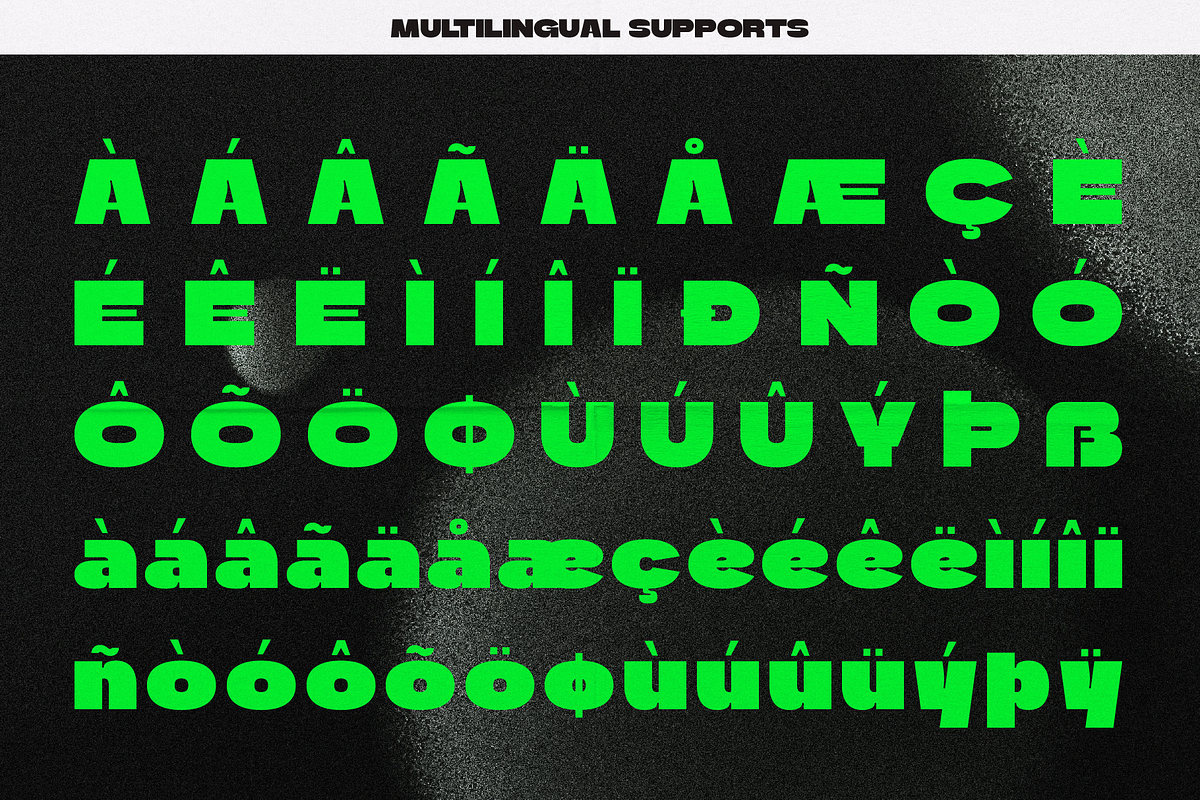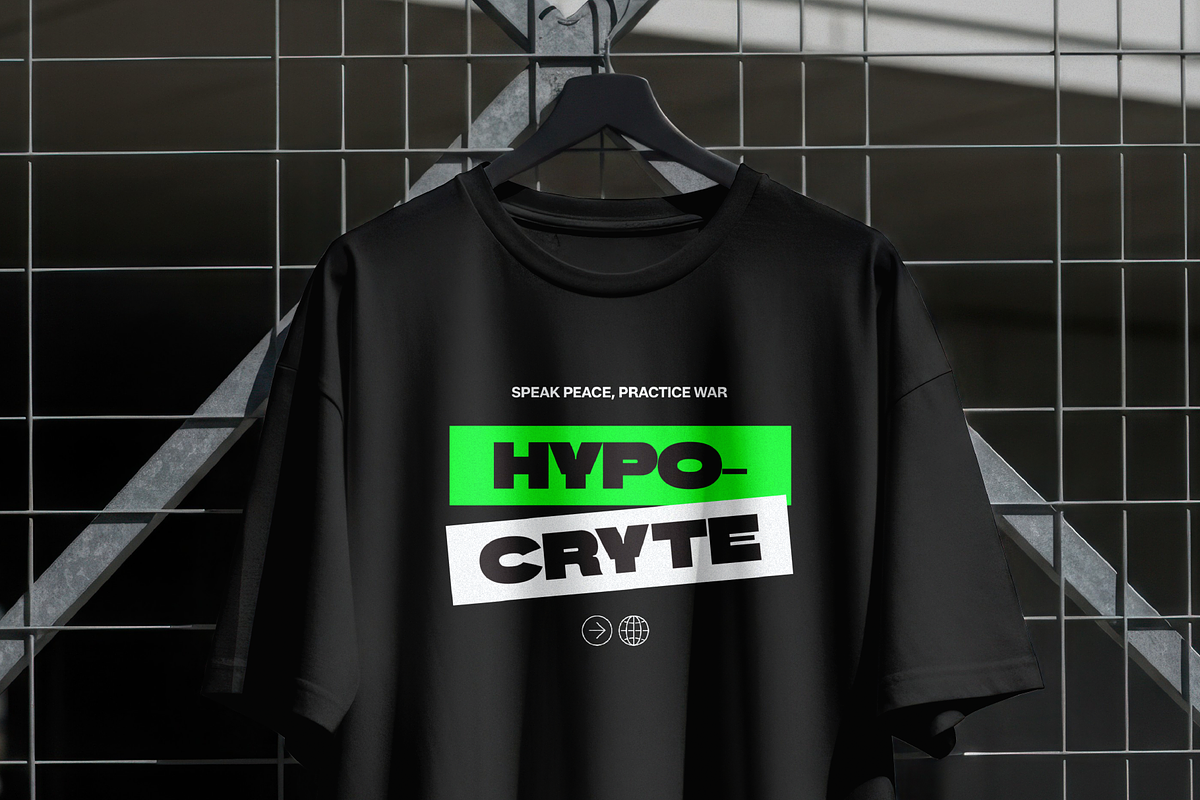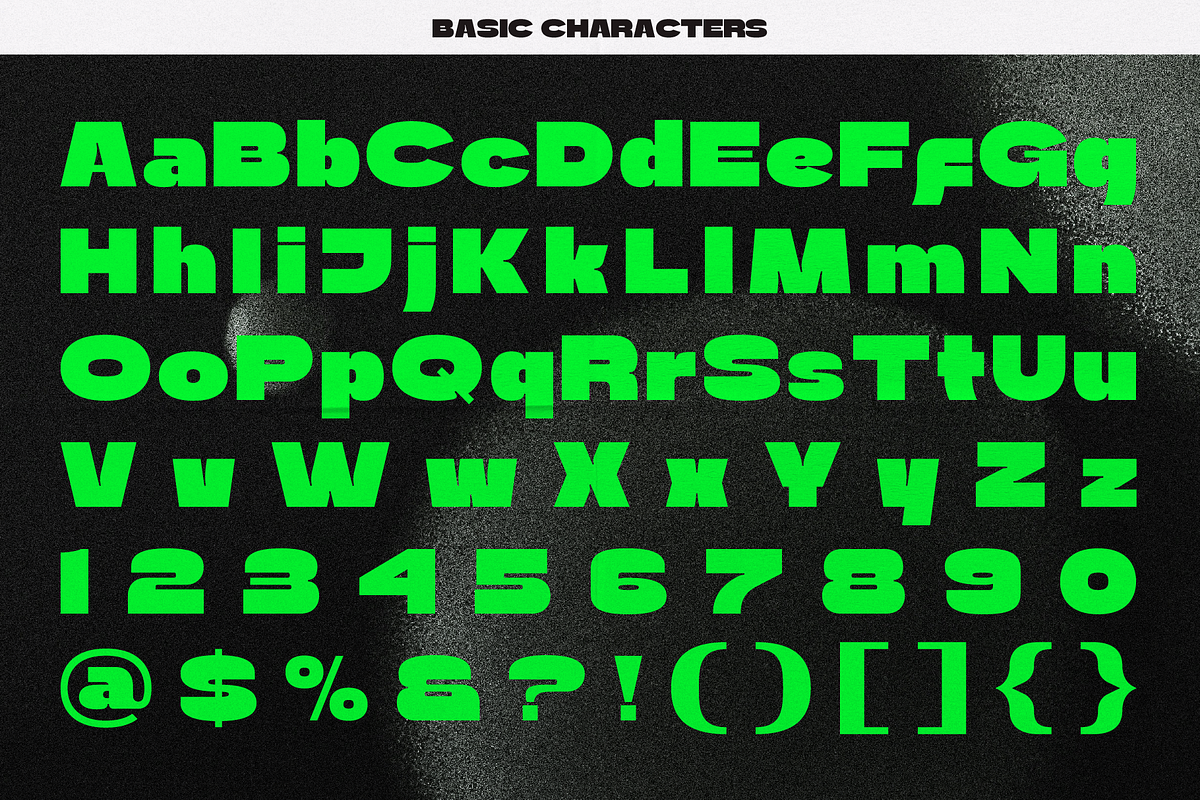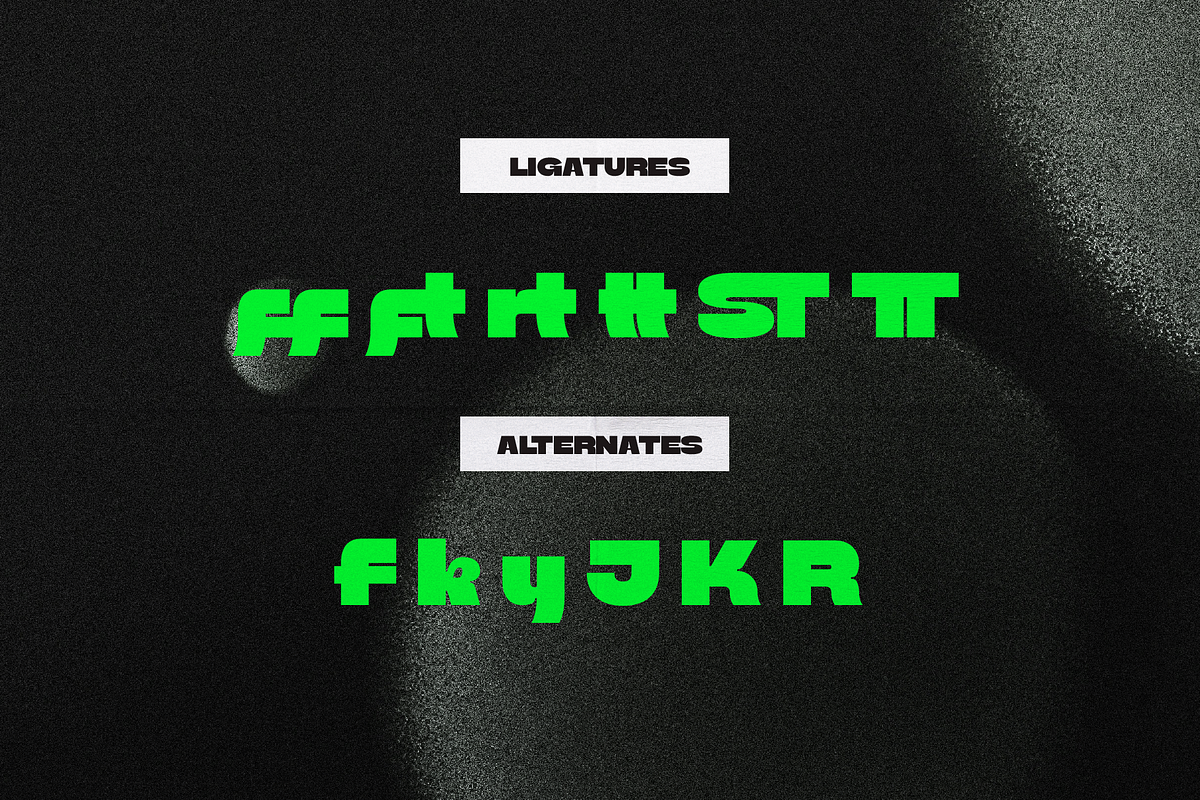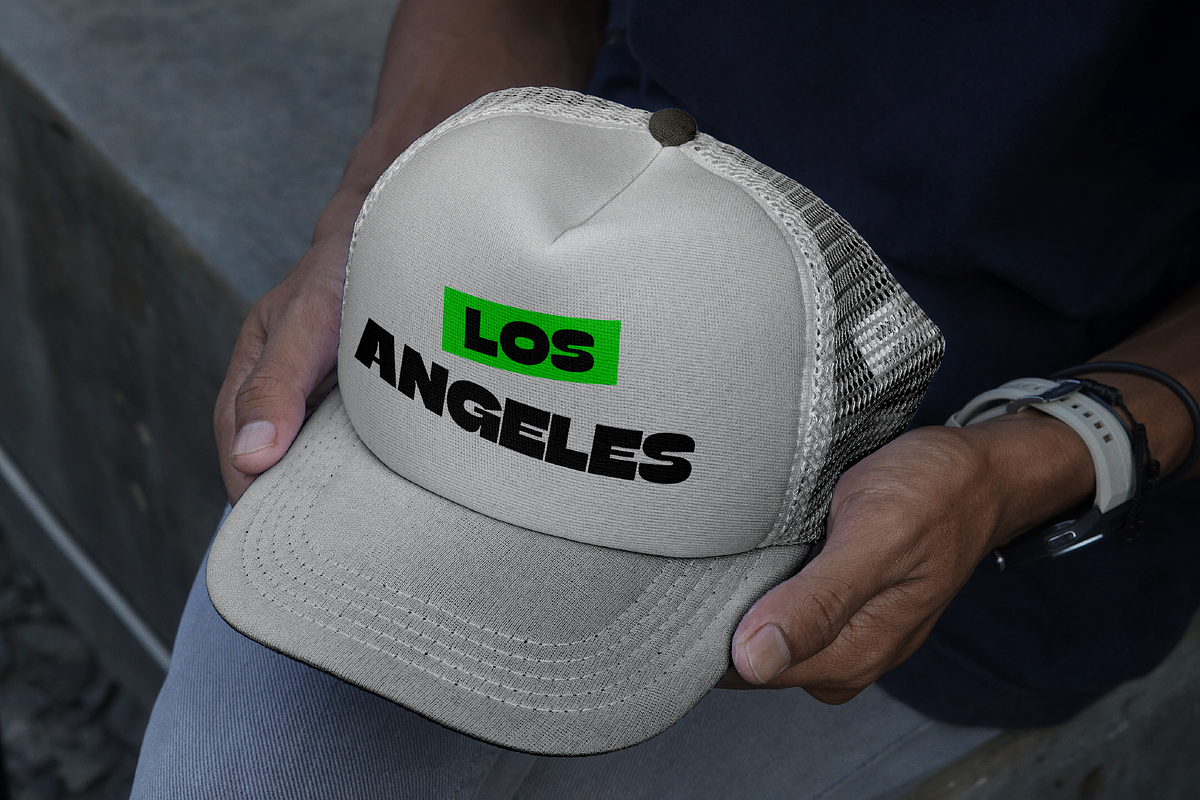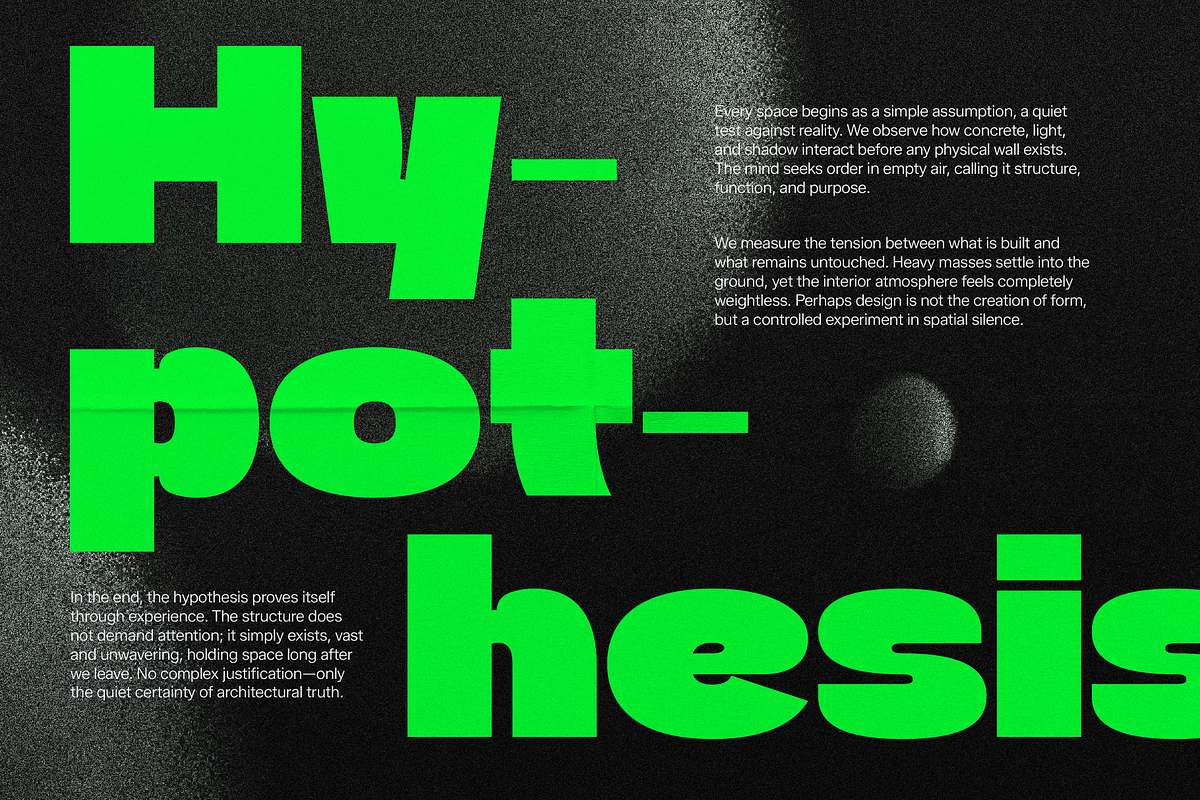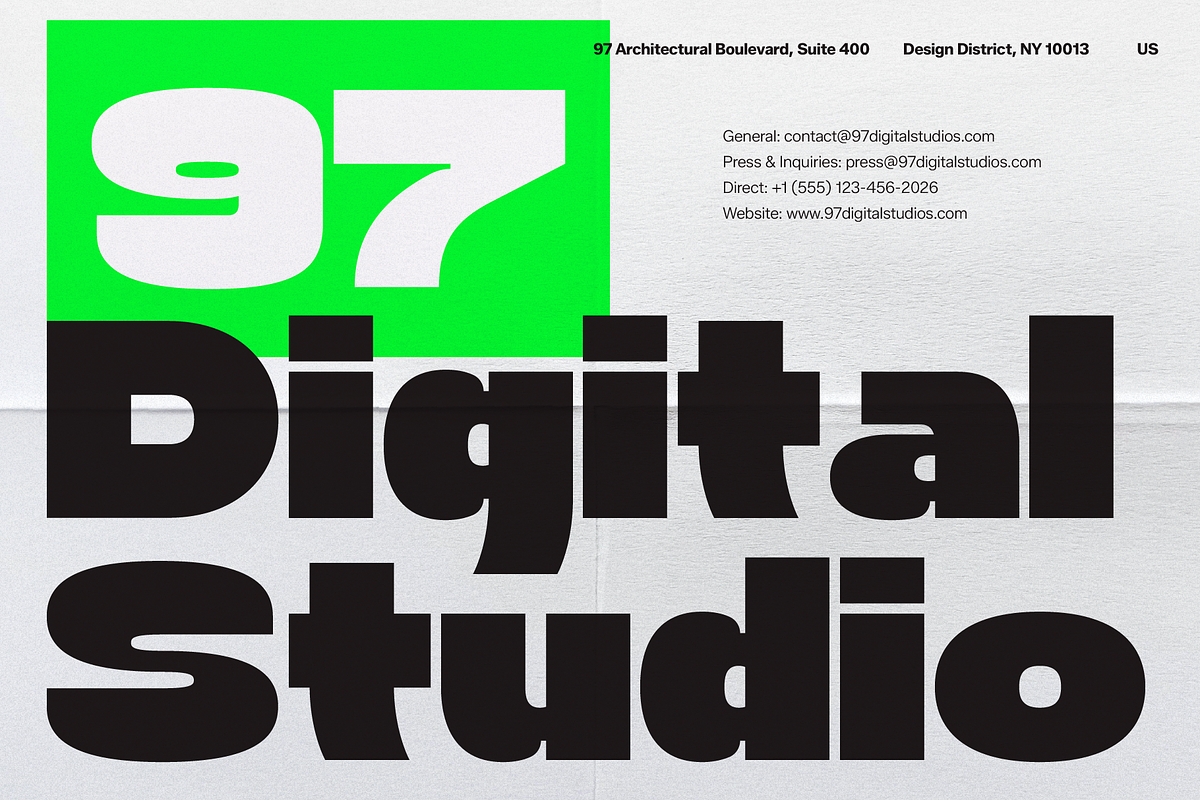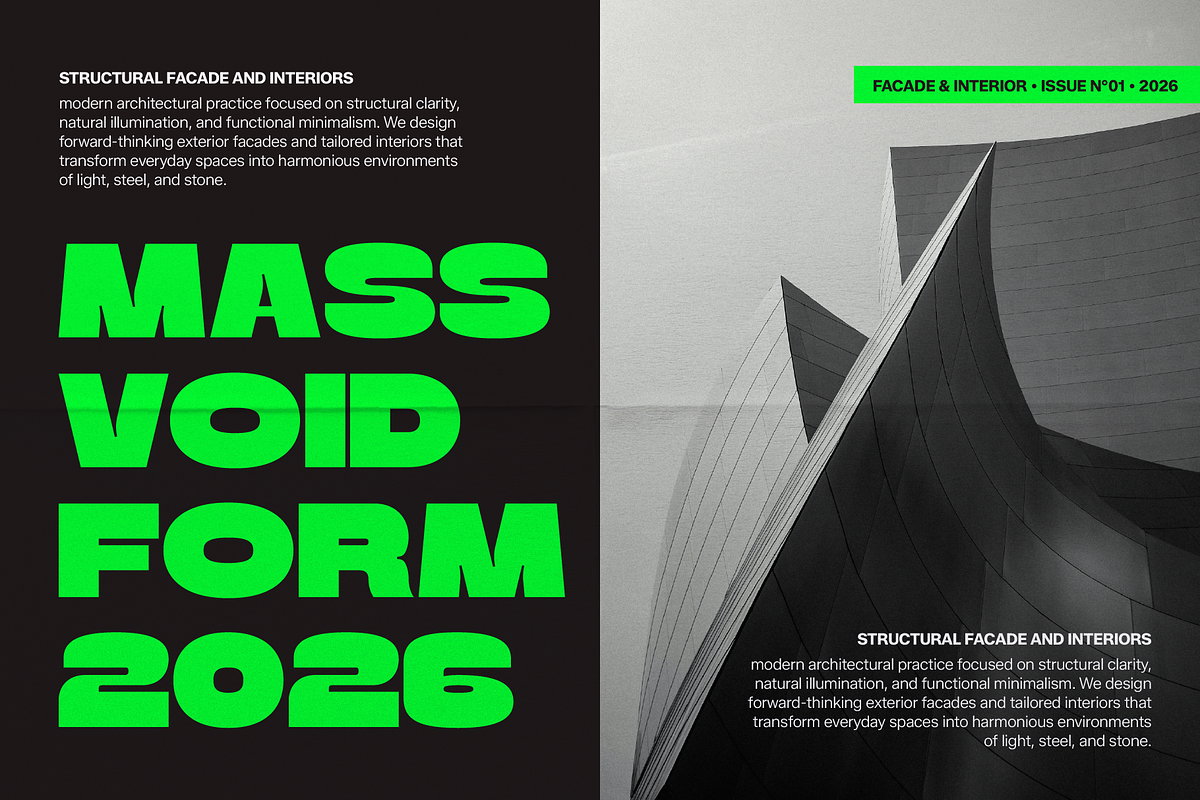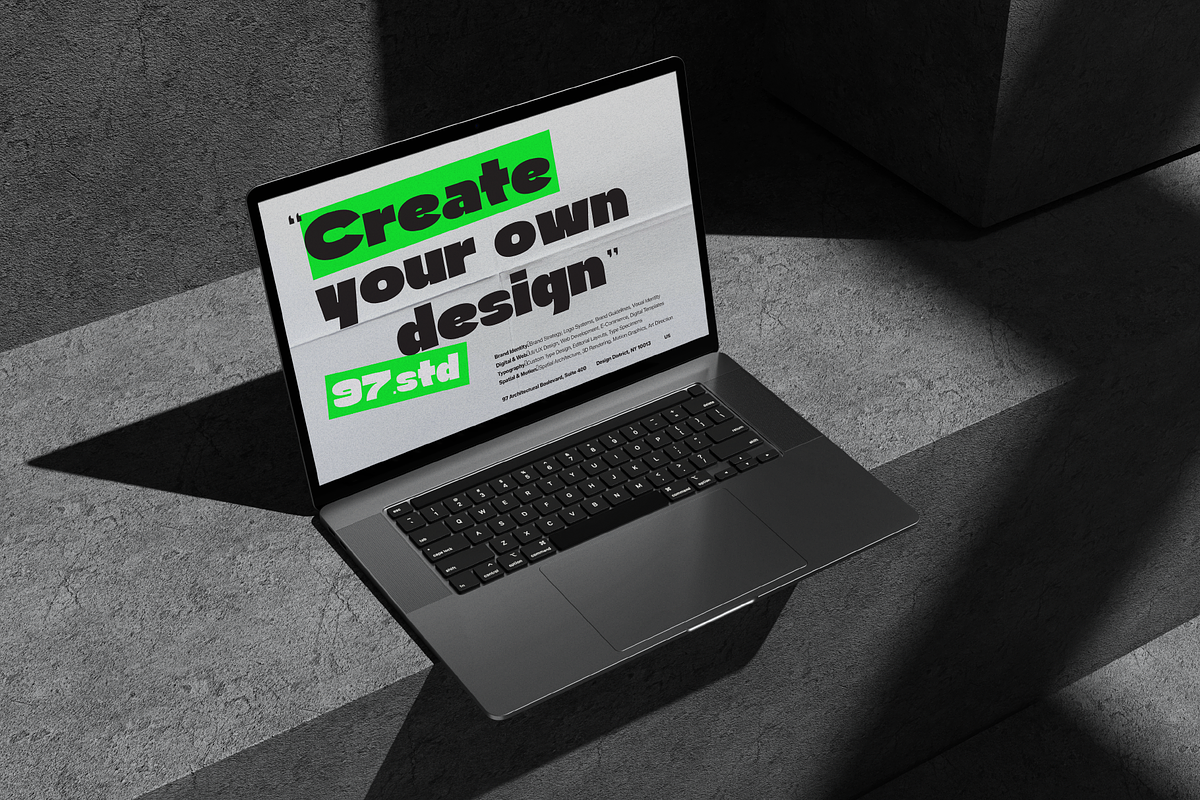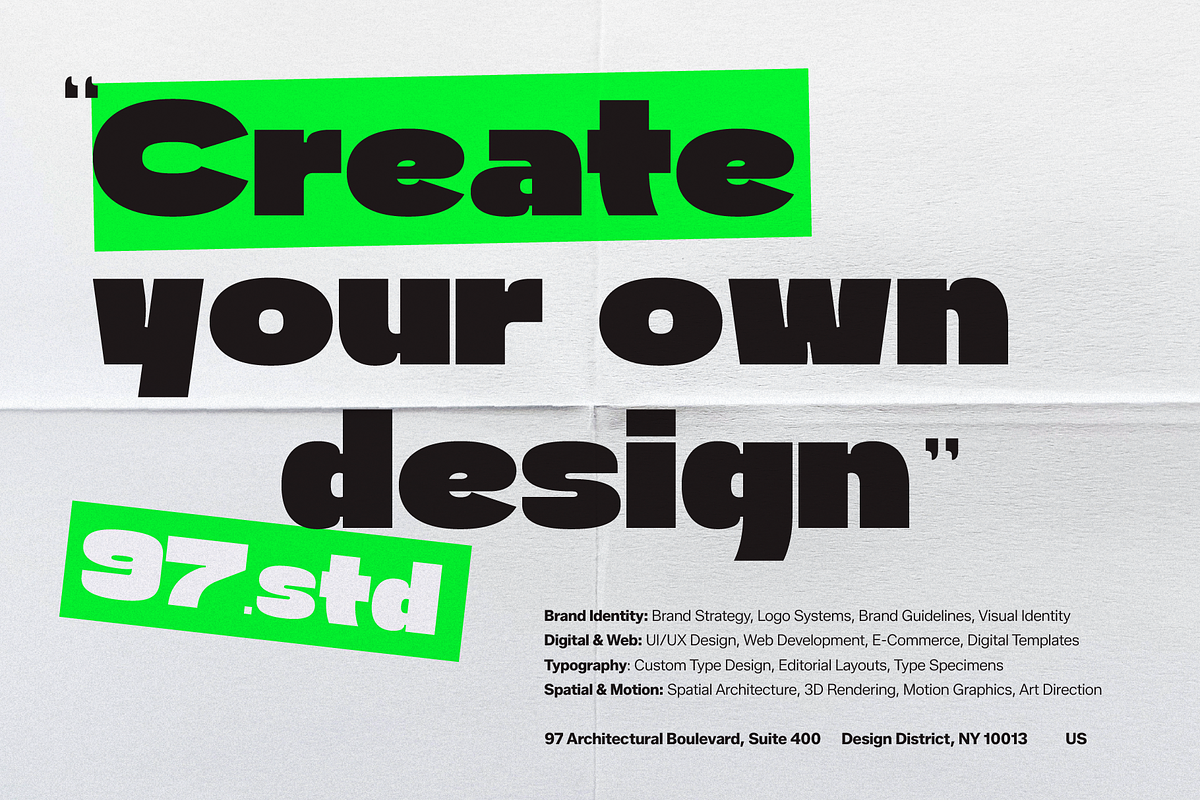
Dork Raft | Extra Bold Grotesk
Dork Raft | Extra Bold Grotesk, from Gracetypestudio, suitable for any projects such as: logos, branding projects, homeware designs, product packaging, mugs, quotes, posters, shopping bags, t-shirts, book covers, name card, invitation cards, greeting cards, label, photography, watermark, special events, and all your other lovely projects that need a sans Font taste.
Alternate and Ligature
Fonts include multilingual support